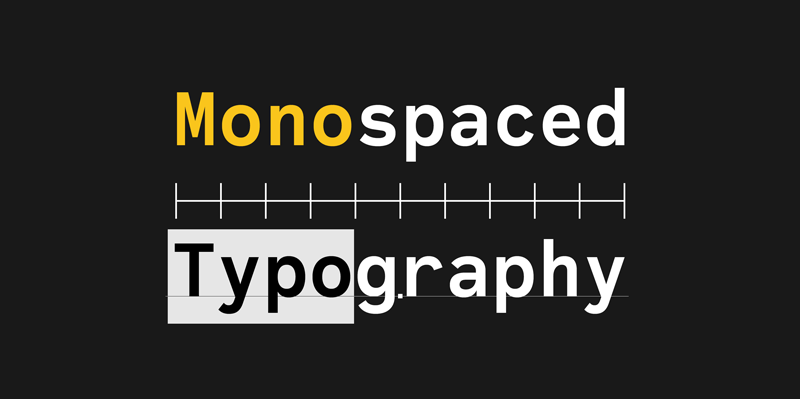
Code Saver � Next-generation monospaced font � 1. is a monospaced font family for coding and tabular layout. 2. is a clean, natural and simple monospaced font family. 3. consists of 6 style, Regular, Medium, Bold and their 11� Italic. 4. is ready in both OpenType and TrueType formats. 5. has 93.33% condensed width for more usable space. 6. has good distinguishability and legibility especially numerals. 7. brings a fresh sensitivity to boring old existing monospaced fonts. https://creativemarket.com/dharmatype/3040425-Code-Saver?u=dharmatype |